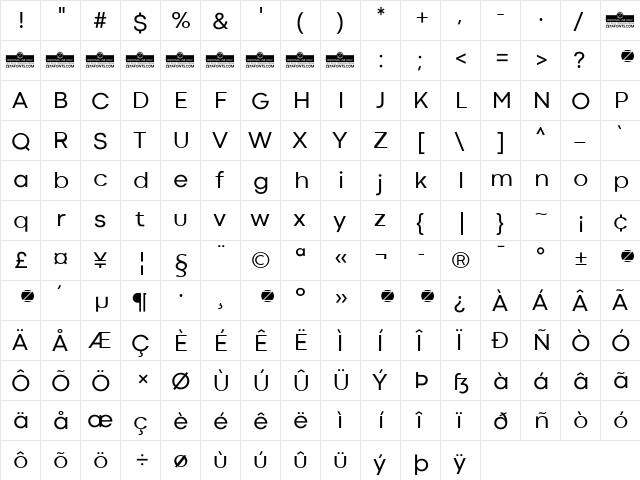
Codec Cold Trial Regular
| Foundry | Cosimo Lorenzo Pancini & Francesco Canovaro |
| Designer | Cosimo Lorenzo Pancini & Francesco Canovaro |
Design Context for Codec Cold Trial Typeface
Codec Cold Trial uses fixed-width spacing throughout, giving it the structured, systematic character associated with coding environments and technical documentation.
A natural fit for code editors, technical documentation, developer-focused branding, and terminal-inspired UI.